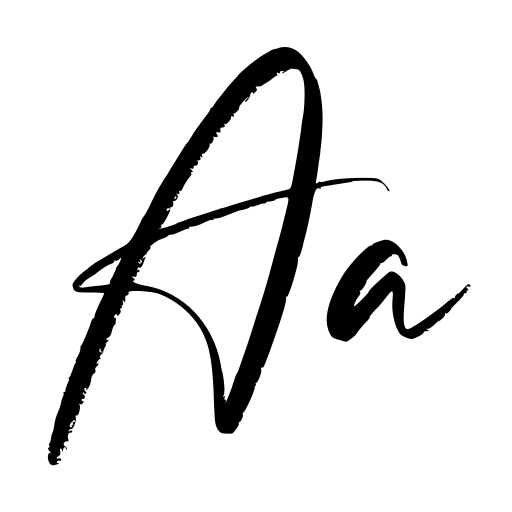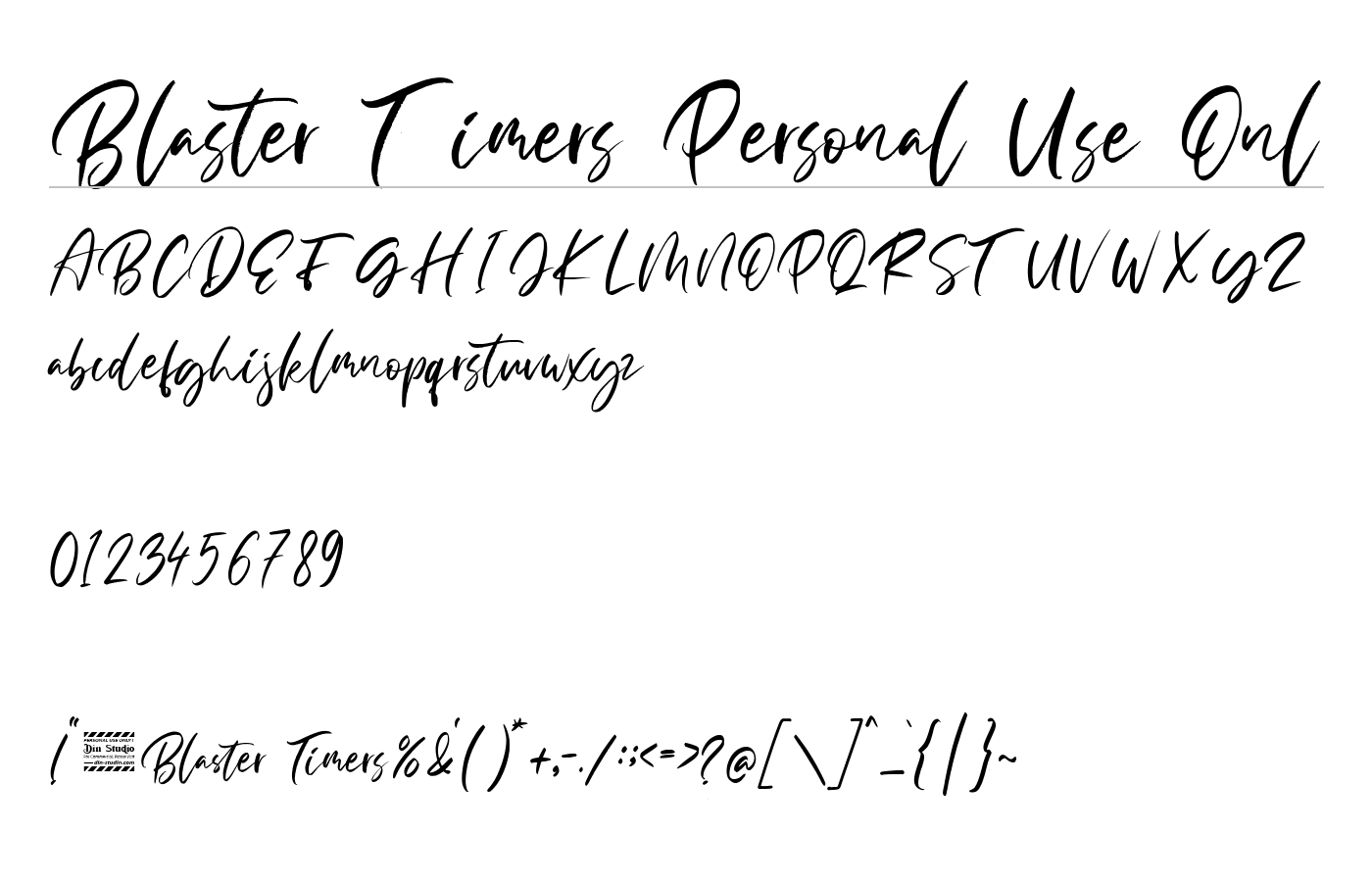
Blaster Timers is a stylish, handwritten script font with a lively and casual feel, featuring smooth, flowing lines and moderate stroke contrast. Its natural, brush-like texture and upright italics give it a personal, creative touch ideal for projects seeking a friendly and dynamic appearance. This font works best for invitations, branding, and headlines where a modern, approachable, and artistic vibe is desired.
Blaster Timers Personal Use Onl Font
About Blaster Timers Personal Use Onl Font